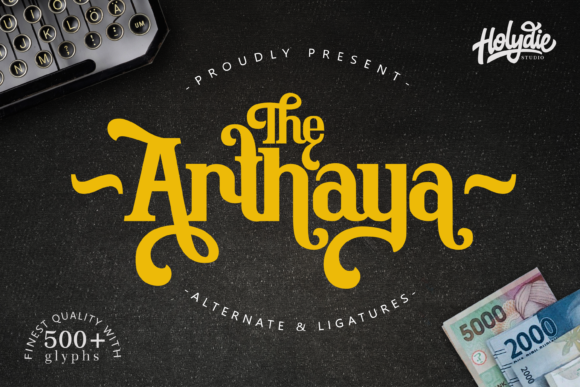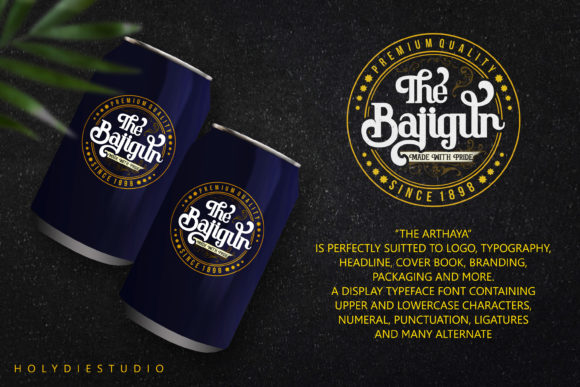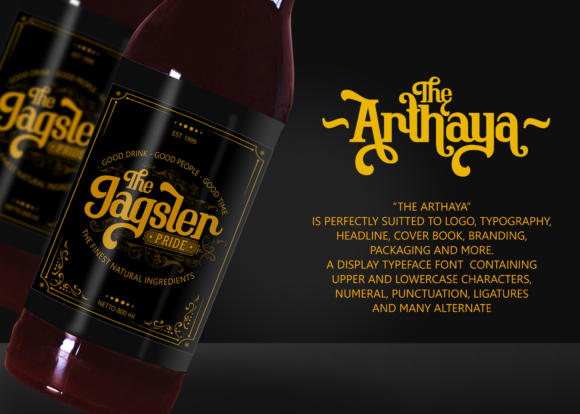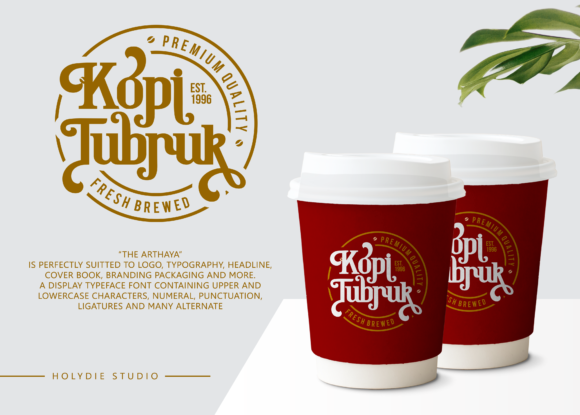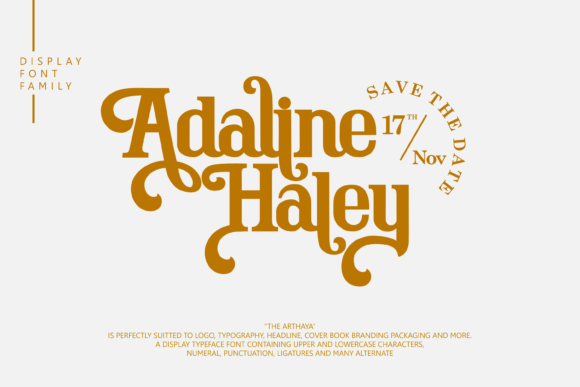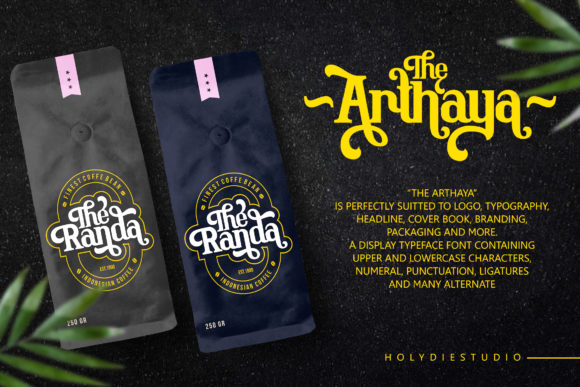
The Arthaya by Holydie Studio
"Elegant sans-serif font with refined curves and subtle flair, perfect for modern designs seeking sophistication and timeless charm."